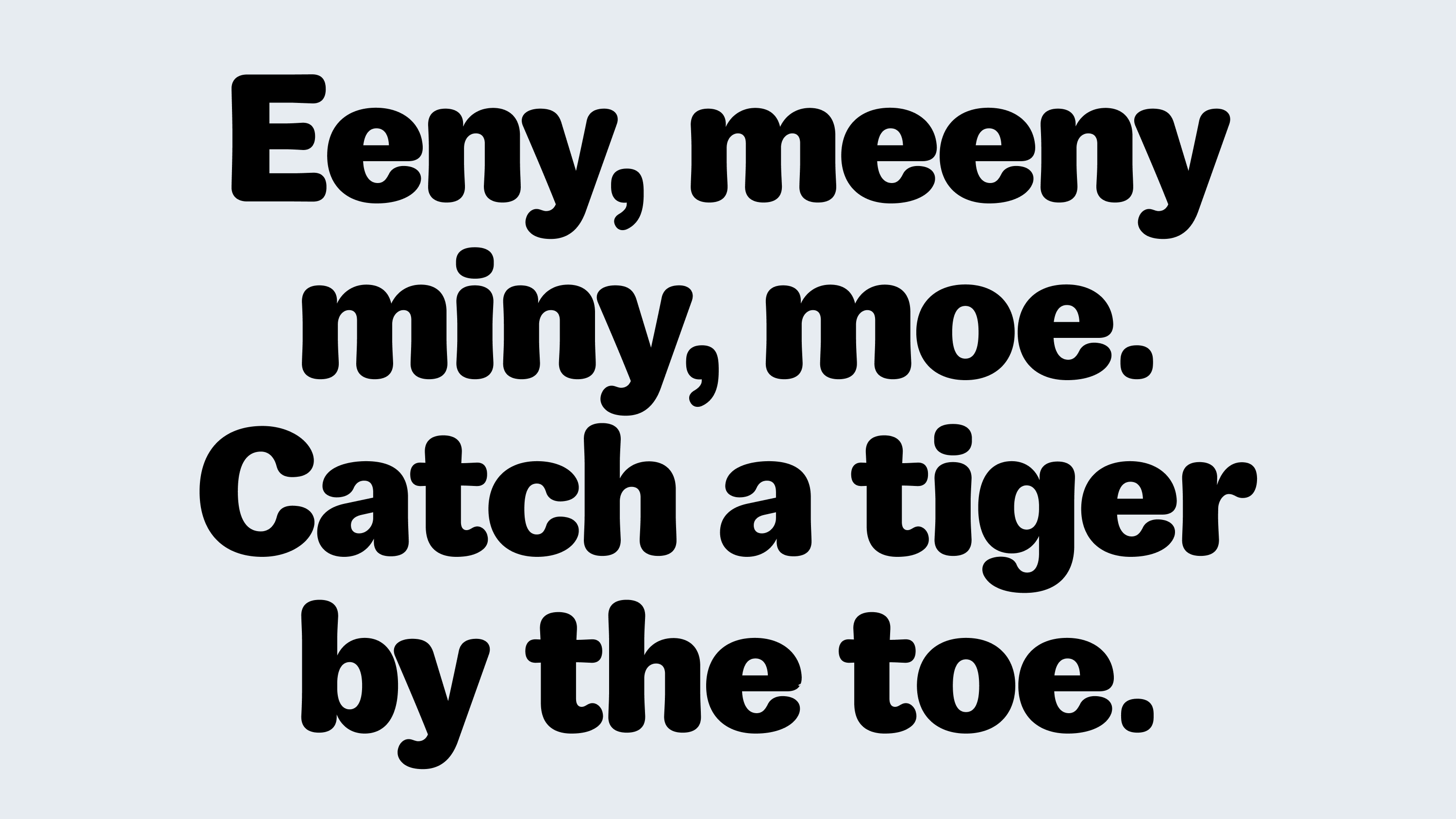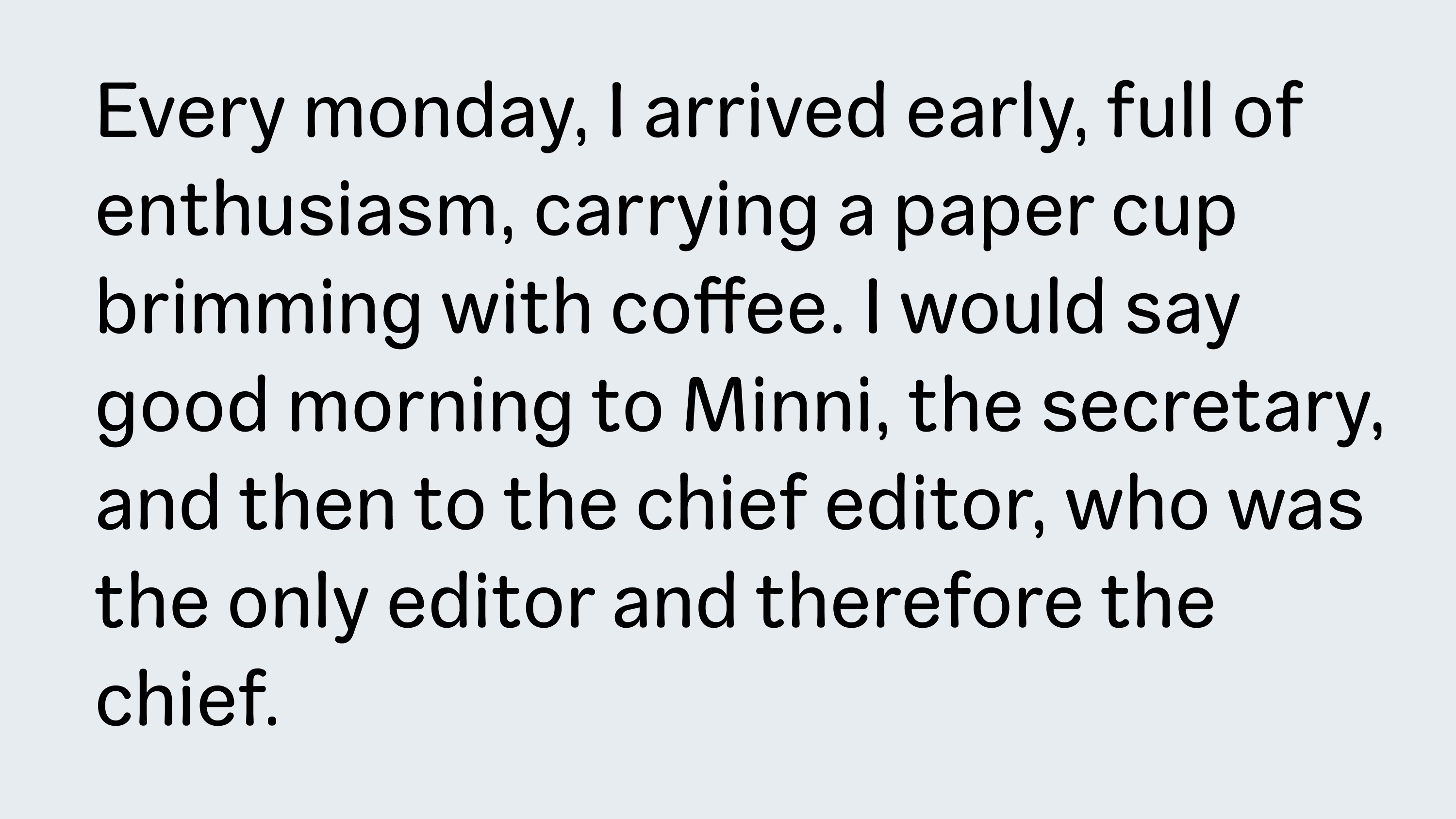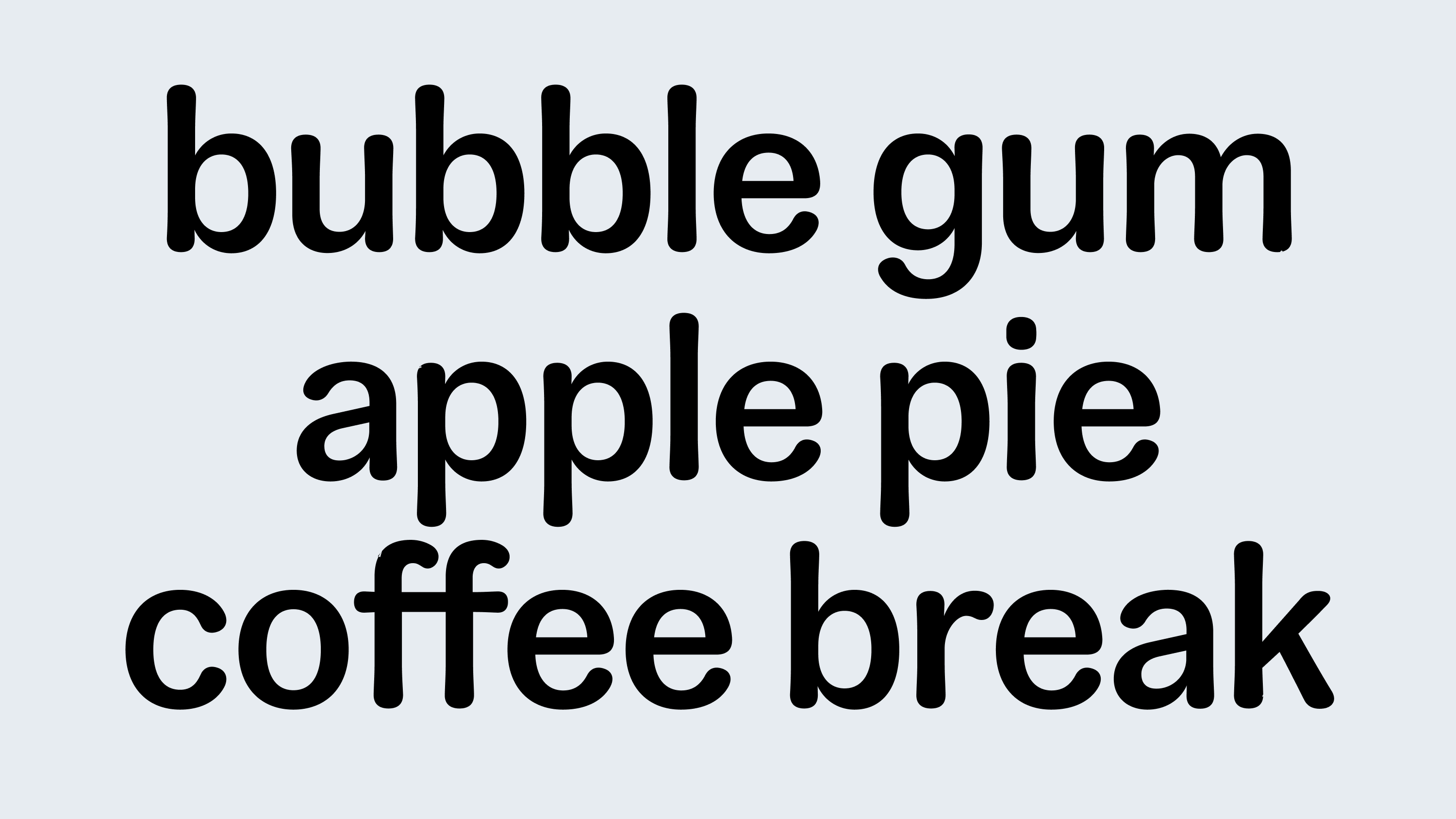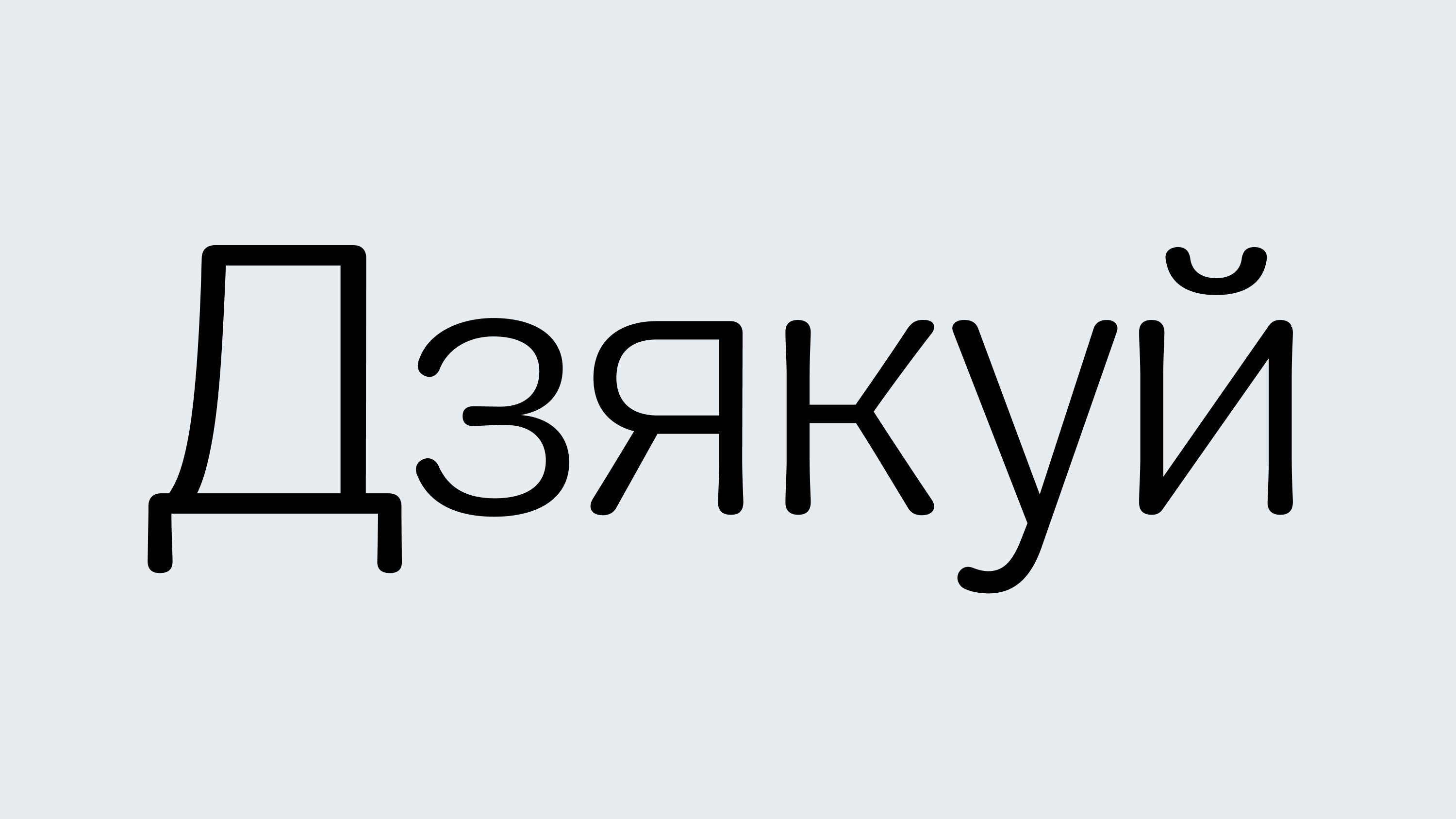
Founder Rounder
Family
5 styles
Scripts
Latin, Cyrillic
Features
Stylistic alternates
Case-sensitive forms
Designer
Denis Serebryakov
Founder Rounder is the rounded version of the Founder typeface. The rounded terminals are not geometric in nature — they don’t simplify the form, but merely soften it, preserving the original rational structure. This gives the typeface a sense of lightness and ease.
There’s a playful tone in Founder Rounder — even its name carries a sense of rhythm. The typeface remains neutral and natural, but feels warmer and more approachable. It’s well-suited for tasks that call for a friendly tone, from interfaces to packaging.